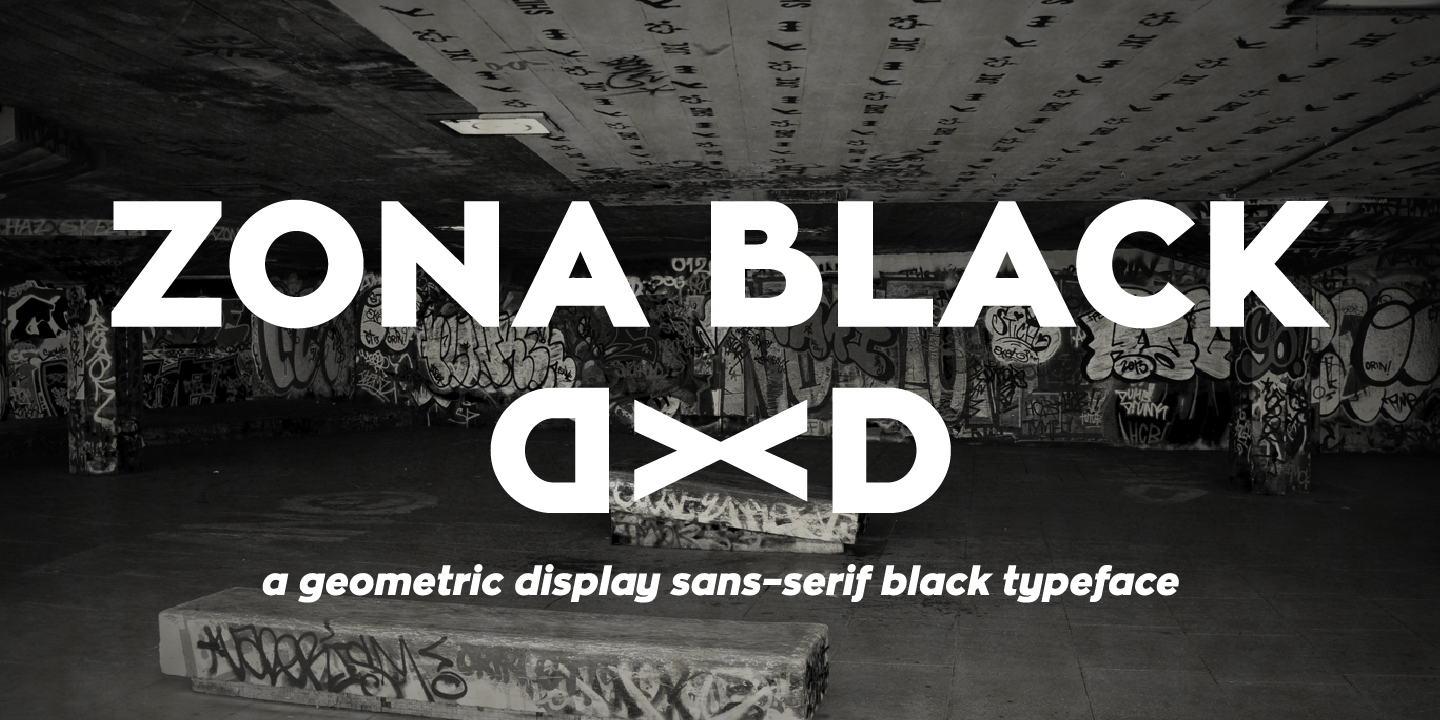
Zona Black Font is perfect for various design applications including bold headline designs, impactful poster campaigns, dramatic advertising materials, powerful brand identities, commanding signage systems, striking magazine covers, dynamic social media graphics, and attention-grabbing promotional materials that require maximum visual impact and commanding presence.
What makes Zona Black Font truly exciting is its exceptional ability to command attention and create powerful visual statements through its bold, authoritative letterforms that dominate any design space with uncompromising strength and sophisticated confidence that refuses to be ignored. This commanding typeface features ultra-bold letterforms with precise geometric construction that evoke images of powerful corporate headquarters, commanding military precision, and the unwavering confidence that defines industry leaders and market dominators. The font's authoritative character reflects the strength and determination required to make bold statements and capture immediate attention, making it perfect for brands that want to communicate market leadership, unshakeable confidence, and the commanding presence that distinguishes industry leaders from their competitors. Its powerful appearance creates immediate associations with strength, authority, and dominant market position.
The Zona Black Font family includes multiple weights and commanding variations designed to enhance powerful communication. The collection features Light, Regular, Medium, Bold, and Ultra Black weights, each maintaining the font's characteristic commanding appeal while offering different levels of visual dominance. The family also includes condensed versions for space-efficient layouts that maintain maximum impact, extended variants for dramatic emphasis, and comprehensive character sets with professional symbols and corporate iconography. Additional features include contextual alternates and power ligatures that create authoritative, commanding text arrangements perfect for leadership and corporate applications.
Corporate and marketing professionals consistently choose Zona Black Font Free Download for projects requiring authentic commanding character and market leadership credibility. The font's powerful nature makes it particularly effective for Fortune 500 companies, market leaders, and dominant brands targeting audiences who expect strength, authority, and uncompromising excellence. Its exceptional visibility and commanding presence ensure effective communication while maintaining the distinctive authoritative character that conveys market dominance and corporate power.
The advanced OpenType capabilities of Zona Black Font include contextual alternates, stylistic sets, and comprehensive character support that accommodates corporate terminology and leadership expressions while preserving the font's authentic commanding character. The technical precision ensures consistent powerful appearance across different corporate applications and leadership platforms.
For creative professionals seeking a typeface that embodies genuine market leadership and commanding sophistication, Zona Black Font offers unparalleled authoritative appeal and corporate elegance. Its ability to convey commanding authority while maintaining functional communication makes it invaluable for market leaders, corporate brands, and dominant companies. The font's distinctive commanding character ensures memorable powerful impact across all applications, creating visual identity systems that celebrate market dominance and the unshakeable confidence that defines true industry leadership and corporate excellence.